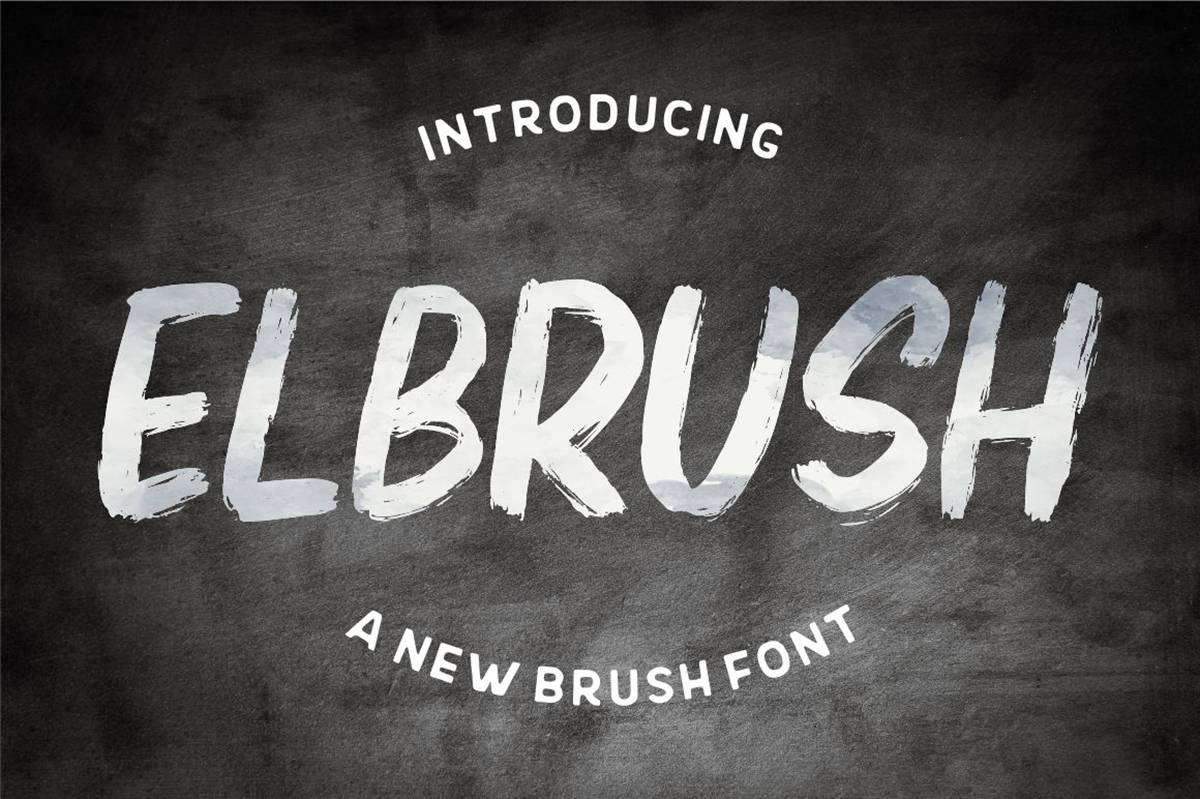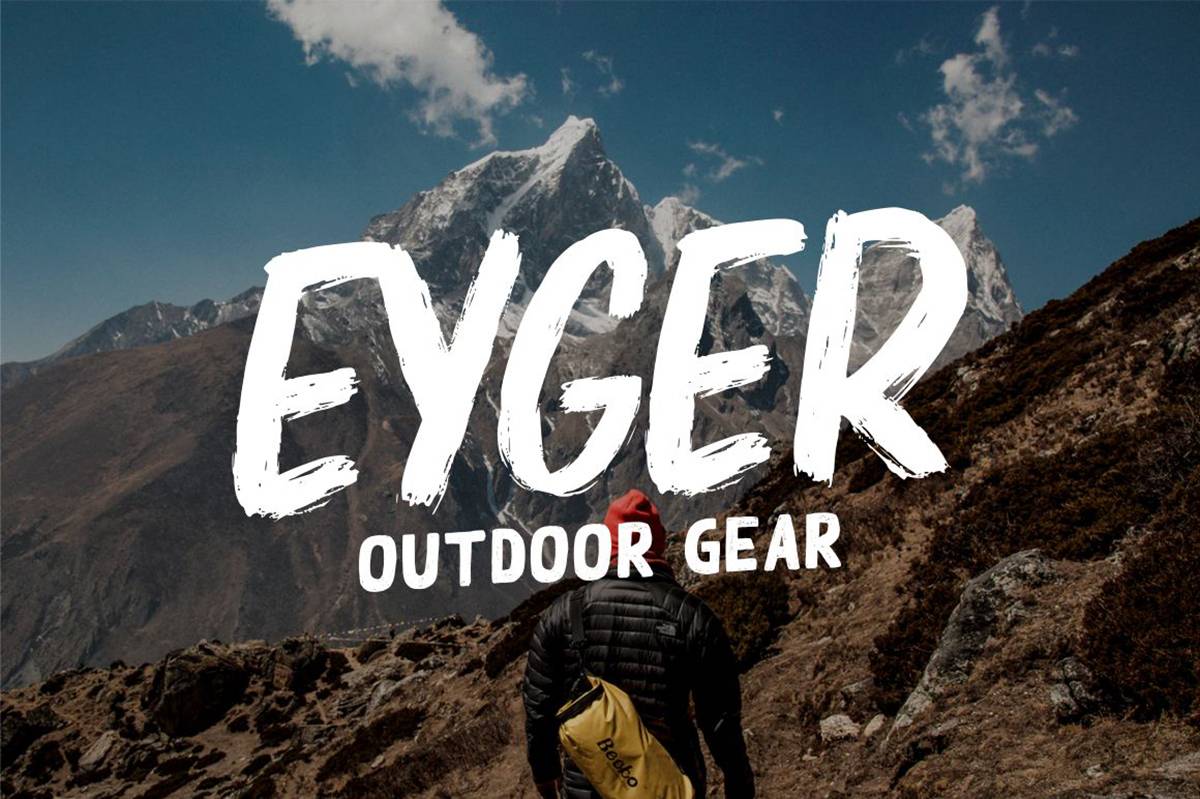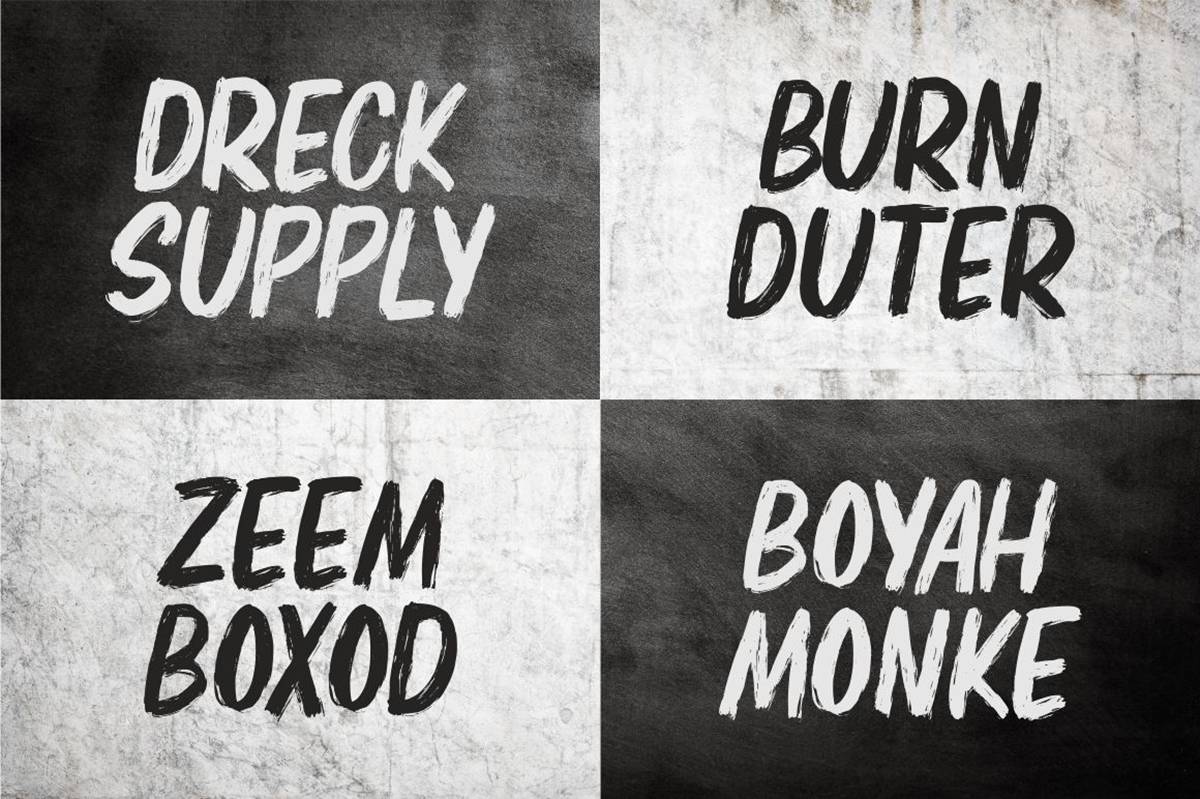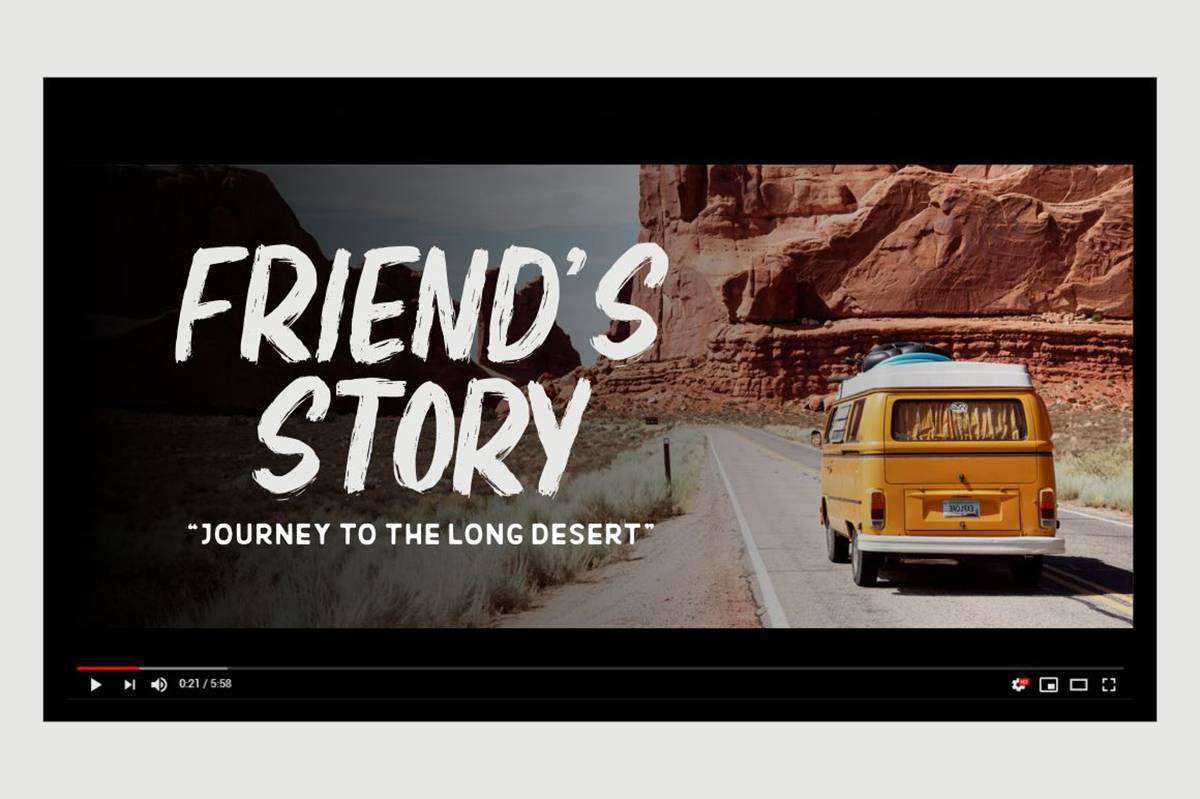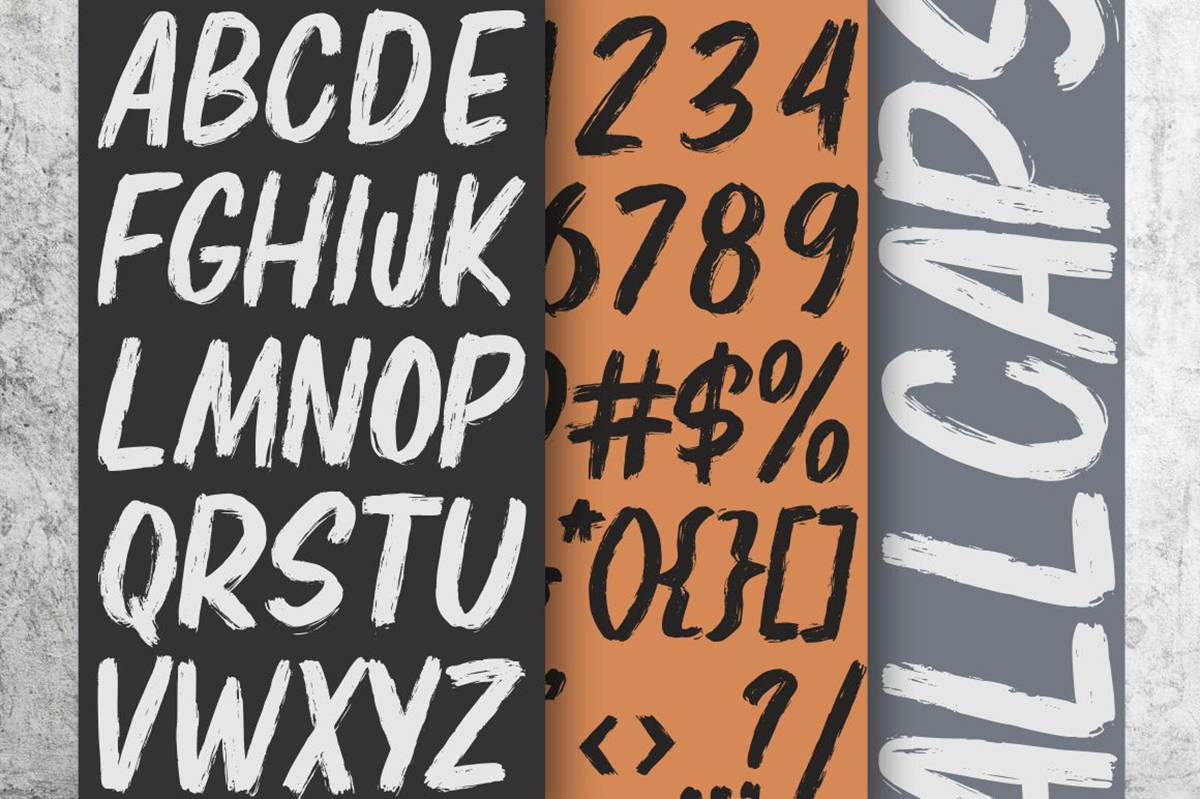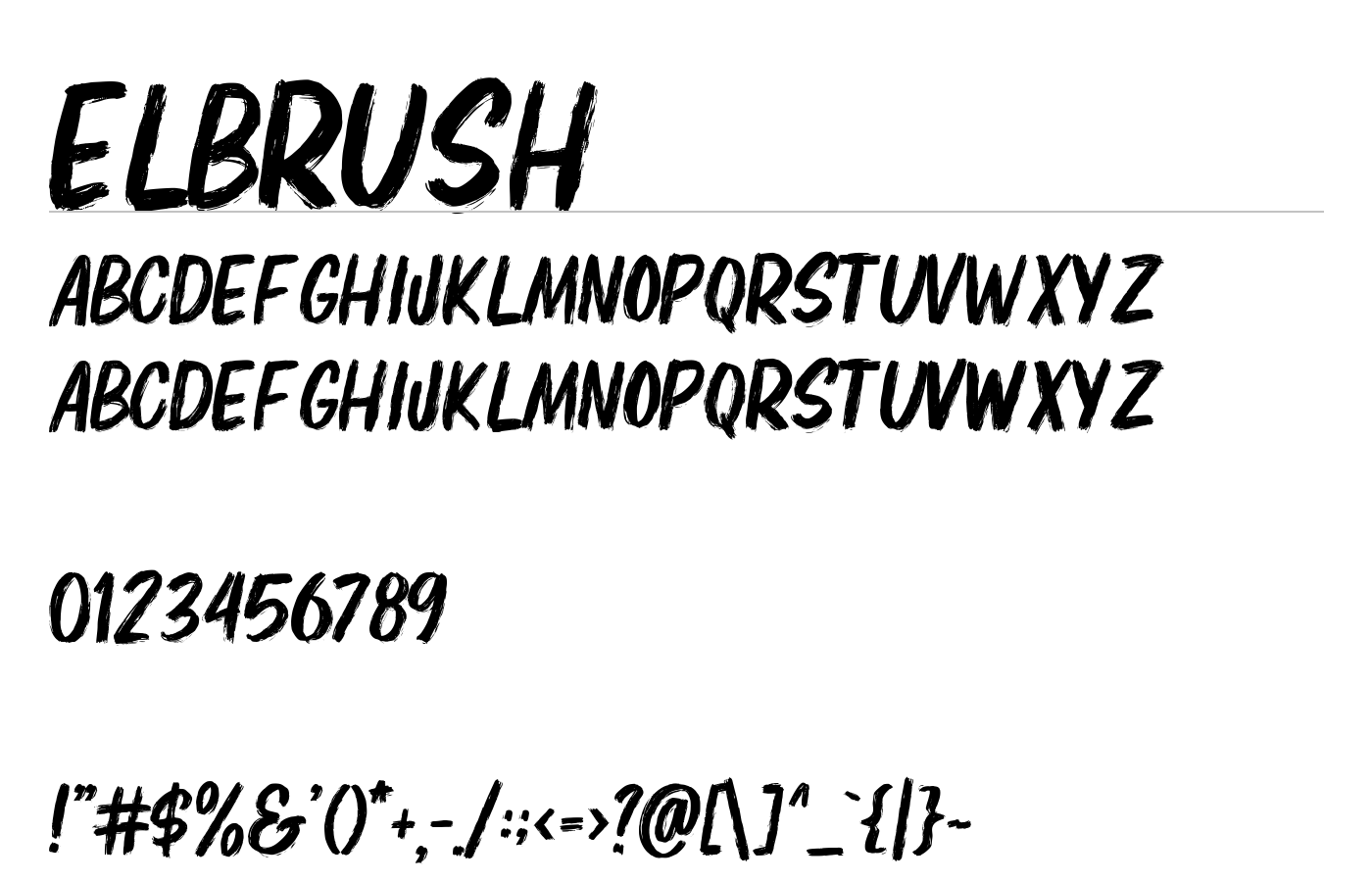
Elbrush is a bold, hand-brushed sans serif font with a lively, textured appearance that mimics natural brush strokes. Its slightly condensed, upright letterforms with rough edges give it an energetic, casual feel, making it ideal for creative projects, posters, and branding that want to convey authenticity and a handcrafted touch. This font works well for headlines or logos where a dynamic and artistic style is desired.
Elbrush Font
About Elbrush Font
| Font family | Elbrush Font |